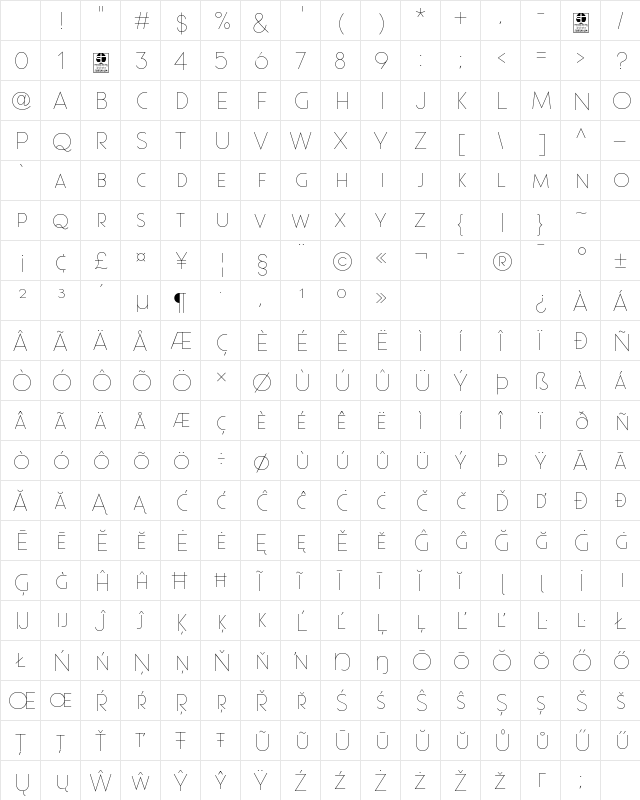
Complete Pages Grotesque Thin Demo Regular glyph index. Displaying only characters natively supported by Pages Grotesque Thin Demo Regular font.
Pages Grotesque Thin Demo is a composed and adaptable typeface that performs quietly and consistently across a wide range of design contexts. Its slender proportions lend an understated elegance to any composition.
Pro Tip: Use Pages Grotesque Thin Demo in both headline and body roles to test its range before committing to a single application.